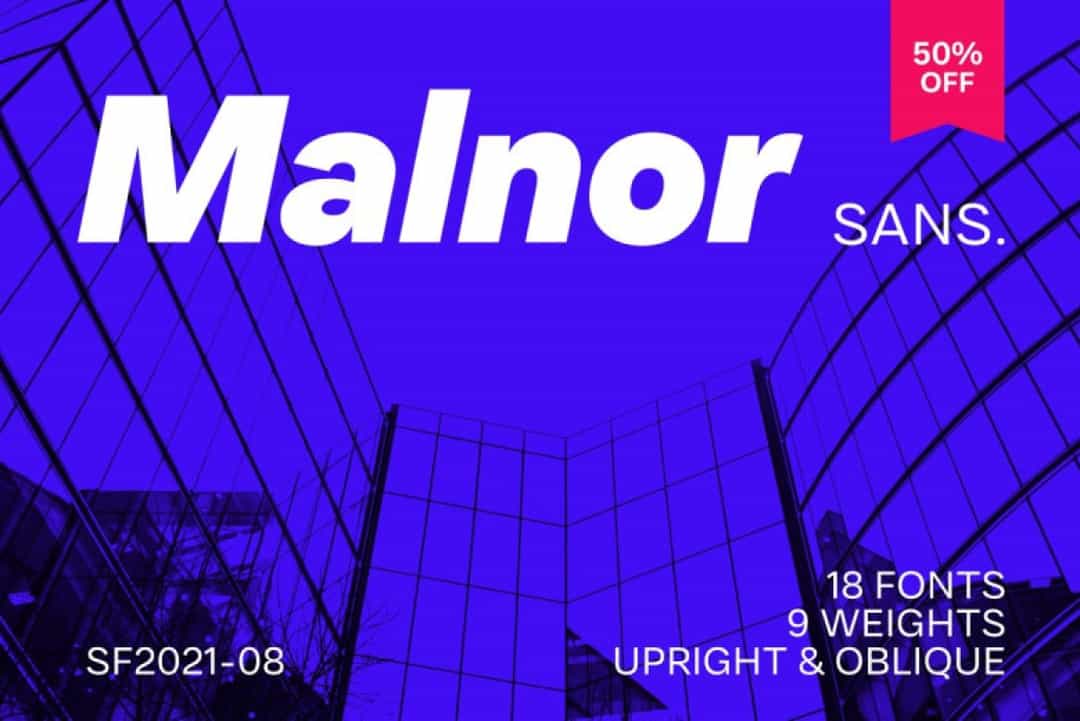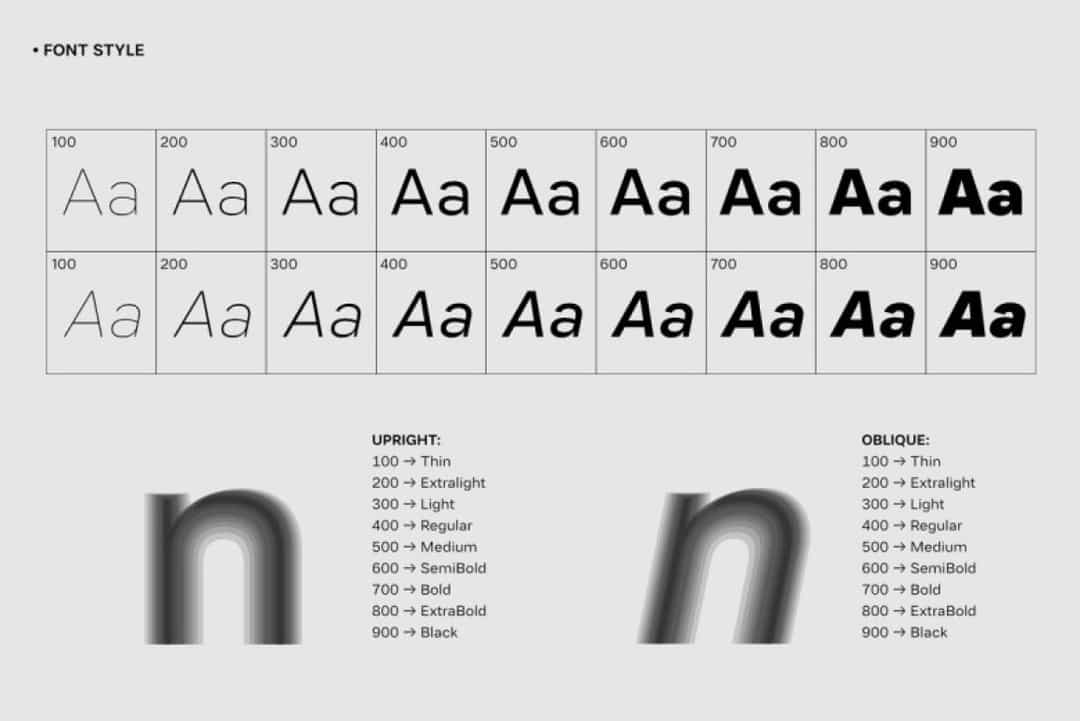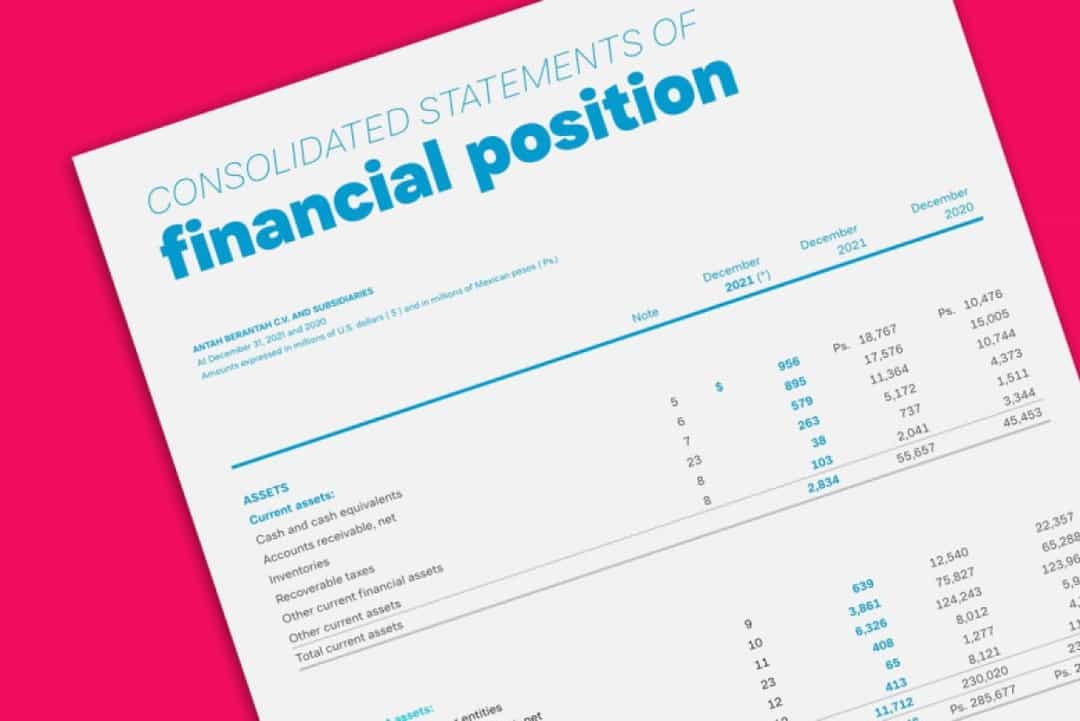
Malnor Font is a standard sans serif font family composed of 18 fonts. Boasting contemporary or neo-grotesque aesthetics, Malnor sans is well balanced for every letter, creating an overall modern and minimalist style.